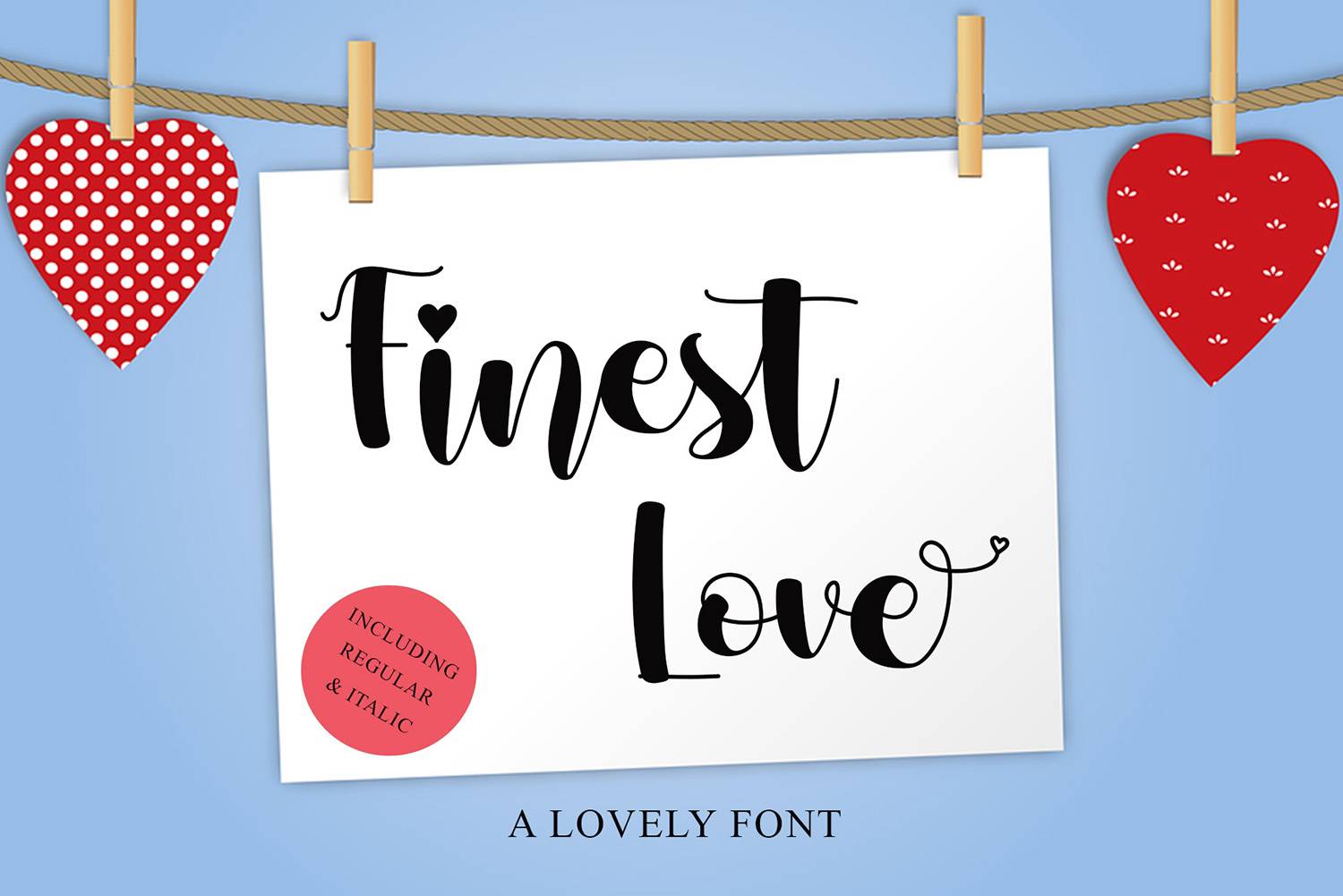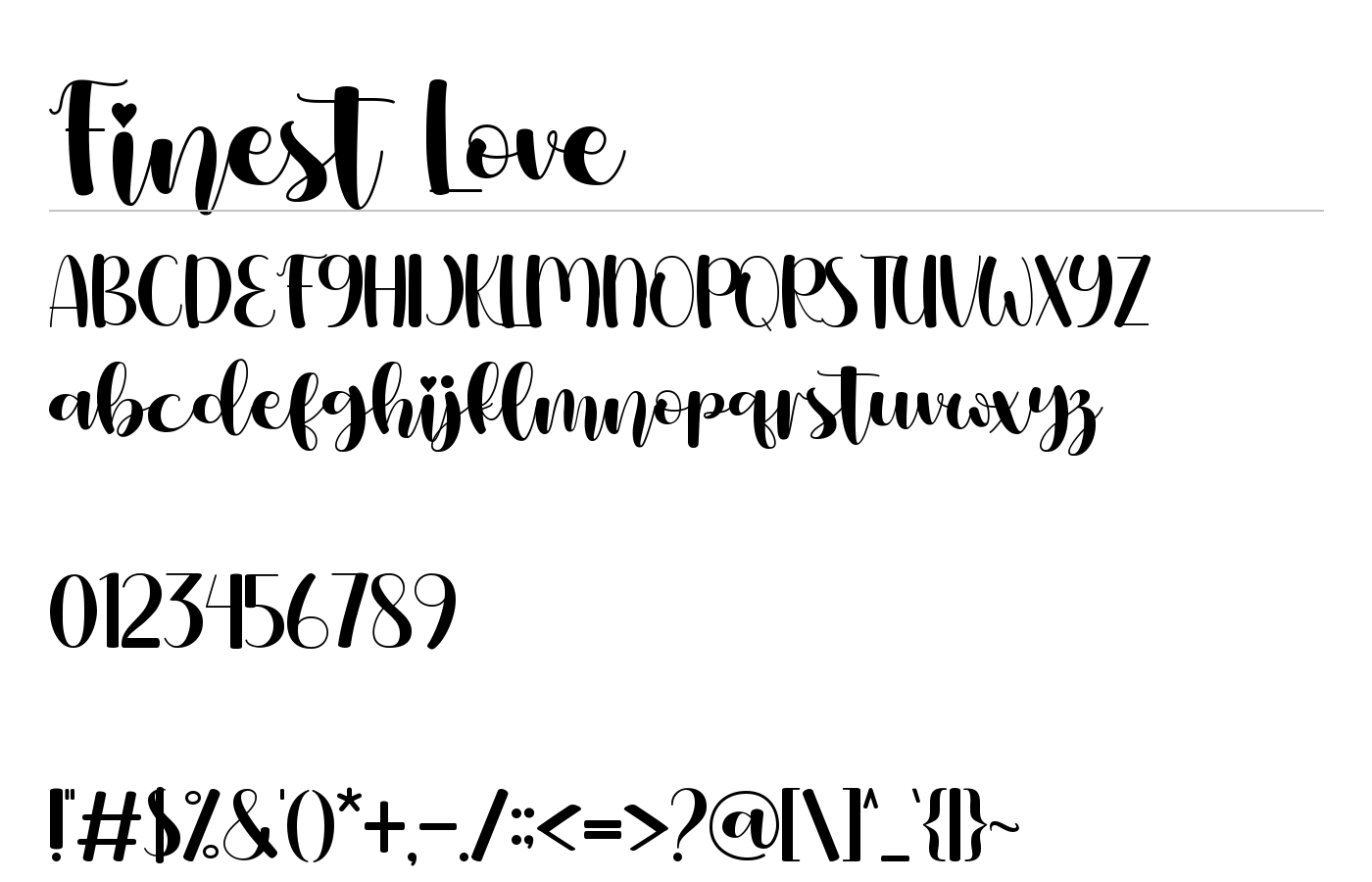
Finest Love is a charming script font with a playful and elegant feel, featuring a mix of thick and thin strokes that create a lively, handwritten look. Its decorative elements, such as heart-shaped dots and swirly terminals, make it ideal for romantic or whimsical designs, perfect for invitations, branding, and creative projects seeking a friendly yet stylish touch.
Finest Love Font
About Finest Love Font
| Font family | Finest Love Font |
| Designer | Endri Sulistyawan |